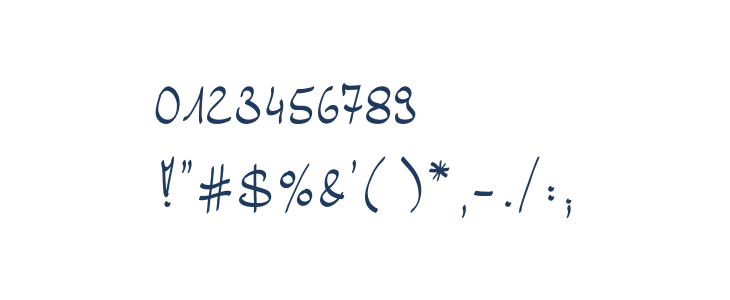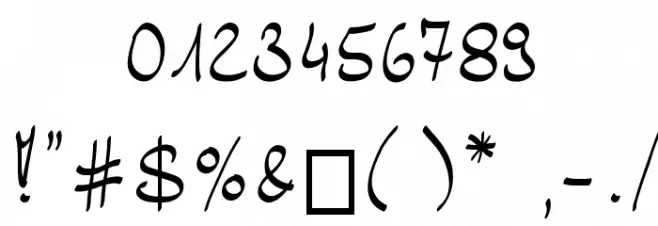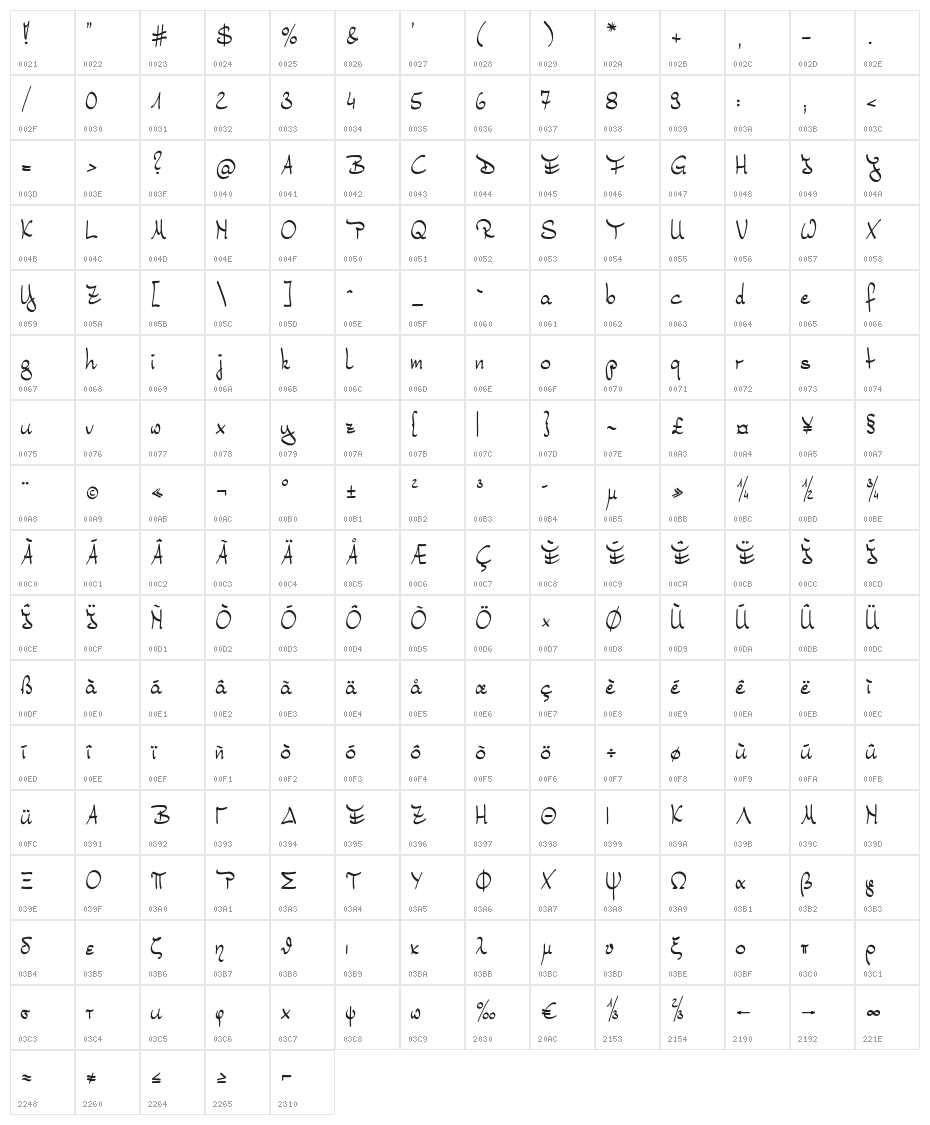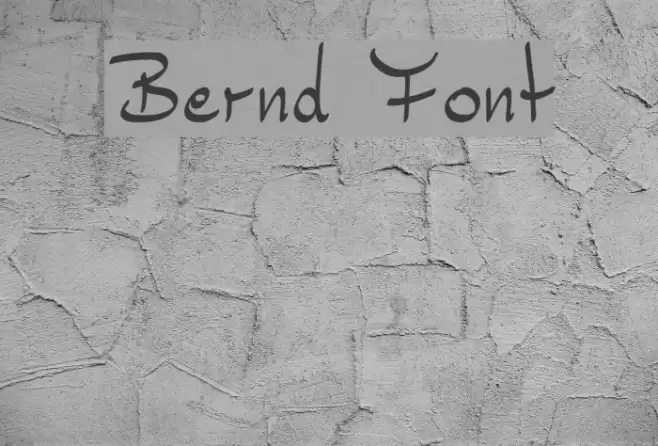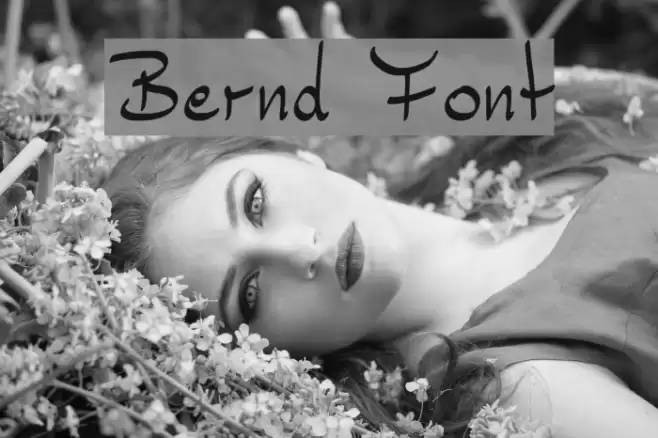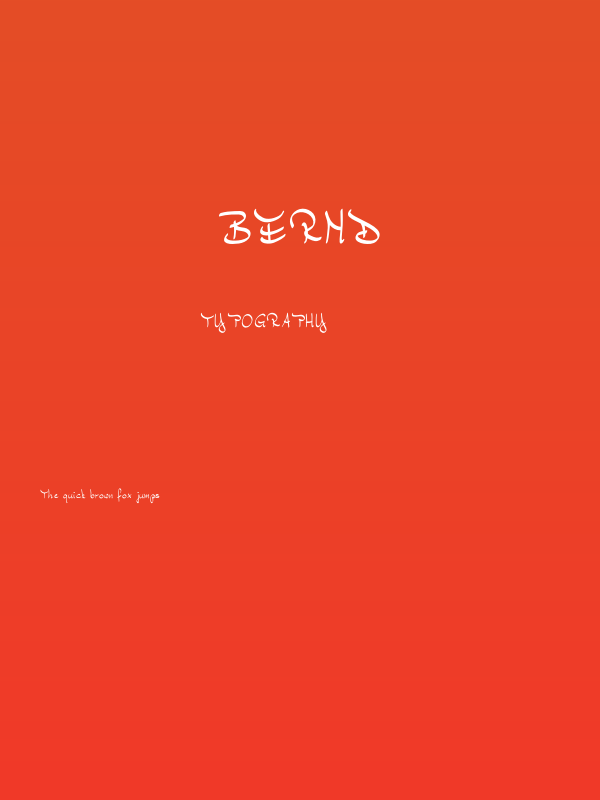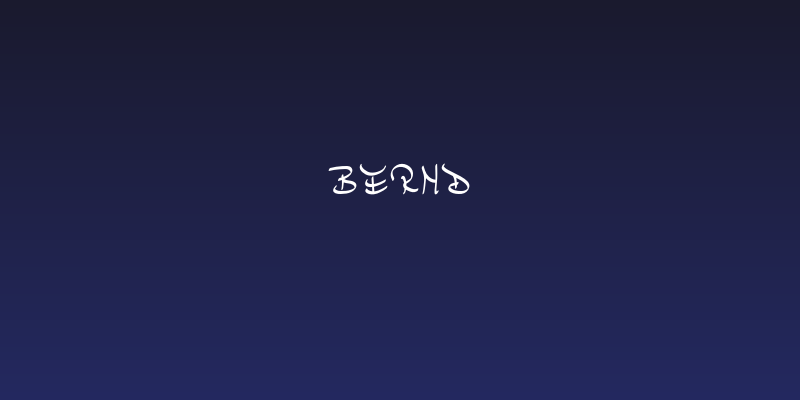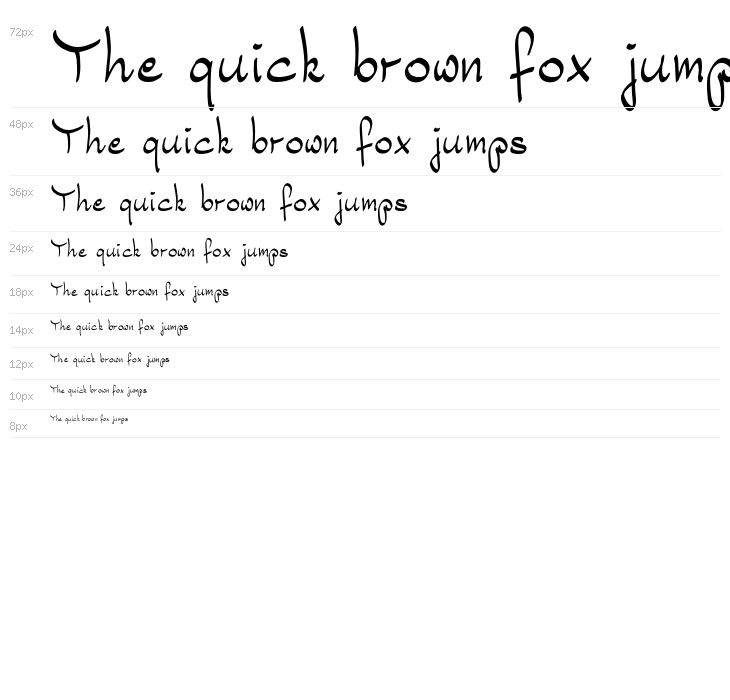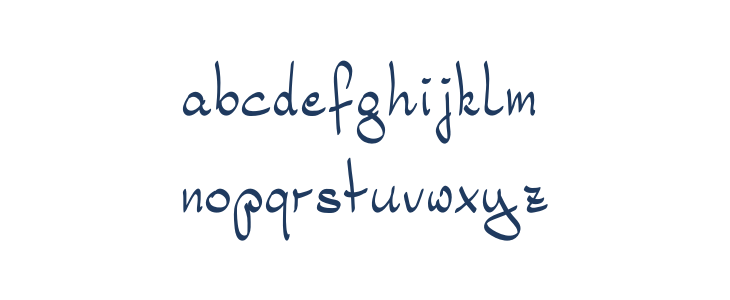
Bernd Font
Bernd Description
This font features a playful and dynamic script style with a handwritten appearance. The letters are characterized by their fluid, cursive strokes and a slight slant, giving them a lively and informal feel. The uppercase letters are bold and expressive, while the lowercase letters maintain a consistent flow with rounded forms. The numerals are distinct and easy to read, complementing the overall style. Special characters are creatively designed, adding to the font's unique charm. This font is ideal for projects that require a personal touch or a sense of whimsy.
| Proposed Projects | Greeting cards, invitations, personal branding, playful logos, and creative posters. |